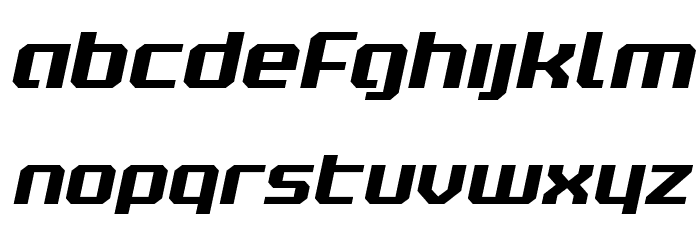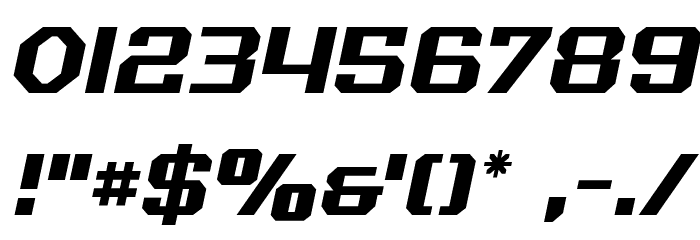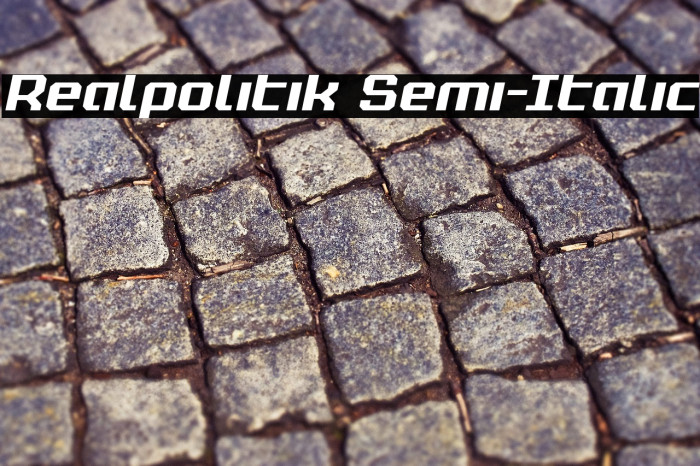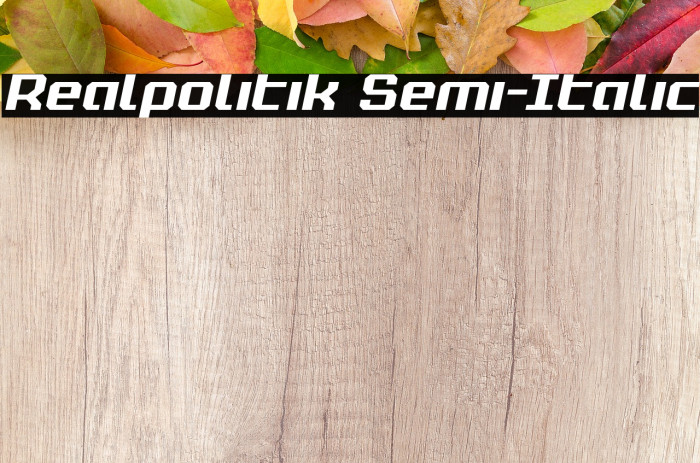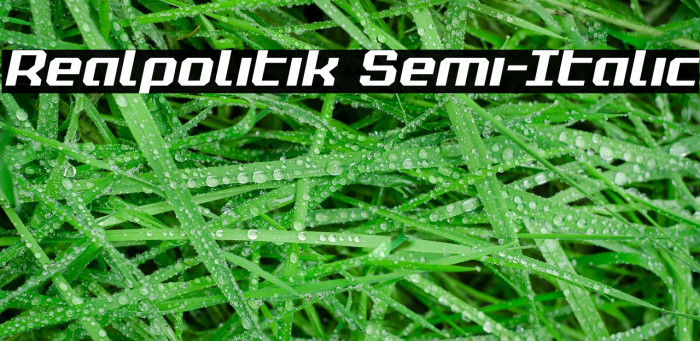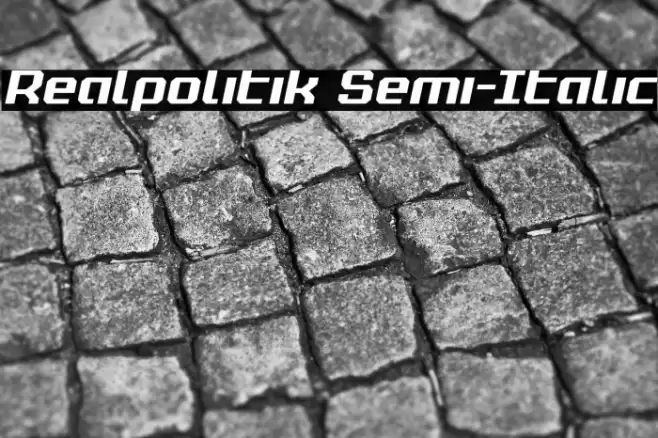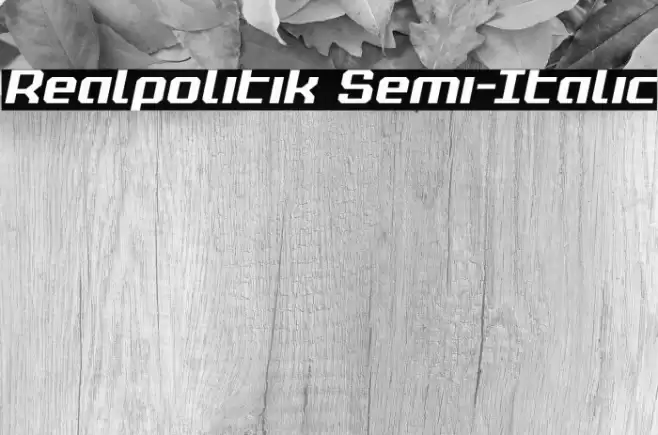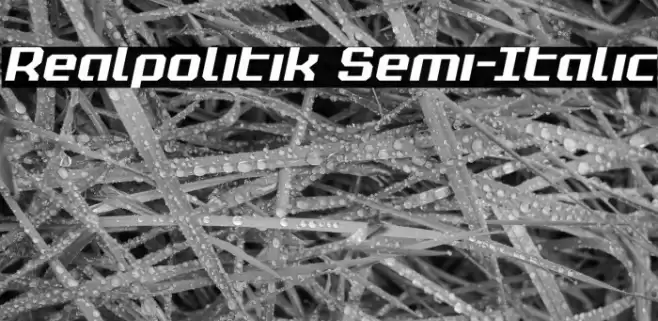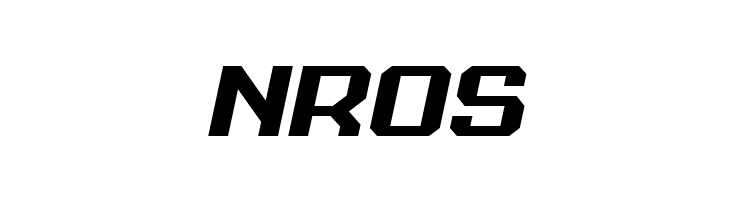
Realpolitik Semi-Italic Font
This font features a bold, angular design with a semi-italic slant, giving it a dynamic and modern appearance. The characters are constructed with sharp edges and a geometric style, creating a sense of movement and energy. The uppercase and lowercase letters maintain a consistent style, with a slight forward tilt that enhances the font's contemporary feel. The numbers and special characters are designed to match the overall aesthetic, ensuring uniformity across all elements. The font's unique style makes it suitable for projects that require a strong visual impact.
A bold, angular font with a semi-italic slant and geometric design.